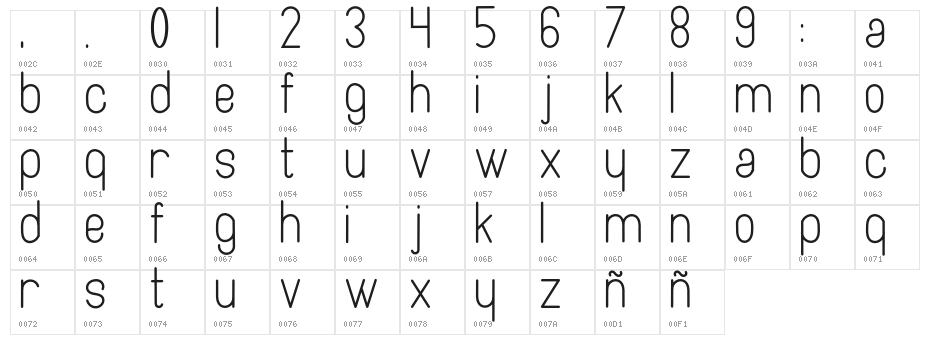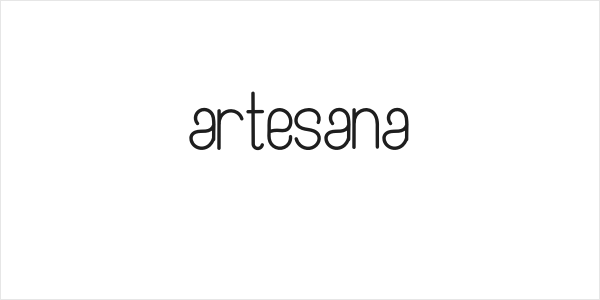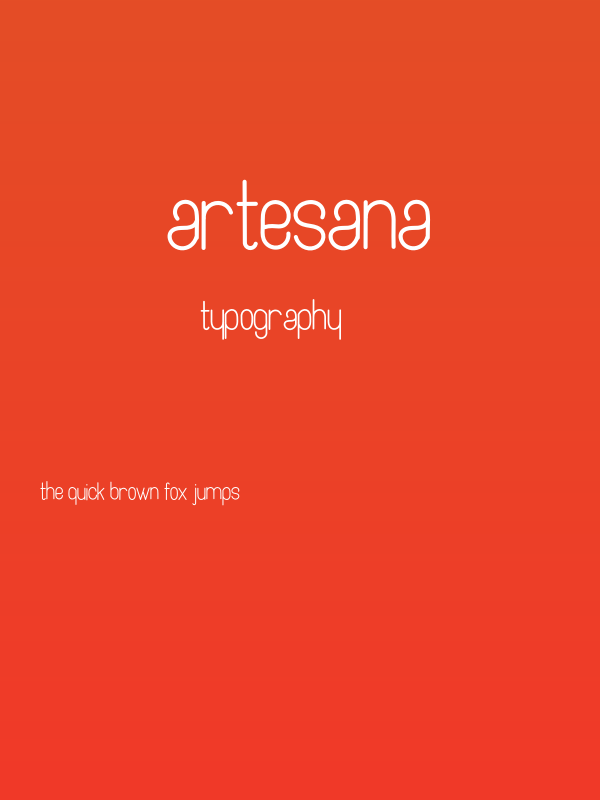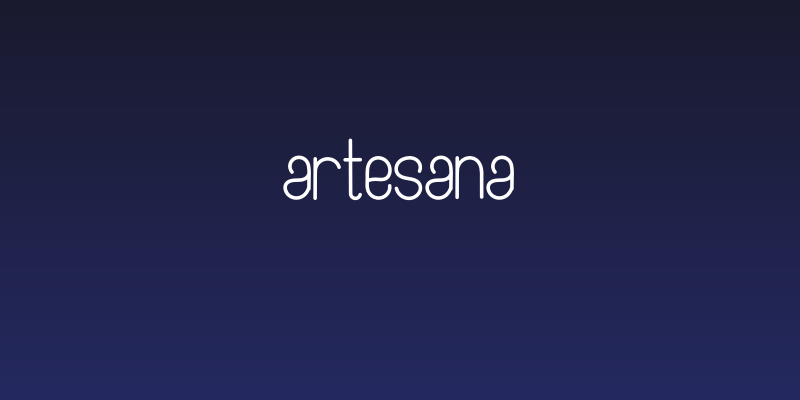
Artesana Font
Artesana Description
This font features a modern, geometric design with clean lines and a minimalist aesthetic. The characters are rounded and uniform, giving it a sleek and contemporary look. The uppercase and lowercase letters maintain a consistent height, contributing to a harmonious appearance. The numerals are distinct and easy to read, with a similar rounded style. The overall design is versatile, making it suitable for a variety of applications. The spacing between characters is balanced, ensuring readability and visual appeal.
| Use Case | Headlines, Logos, Digital media |
| Proposed Projects | Ideal for branding, advertising, digital media, and modern web design projects. |